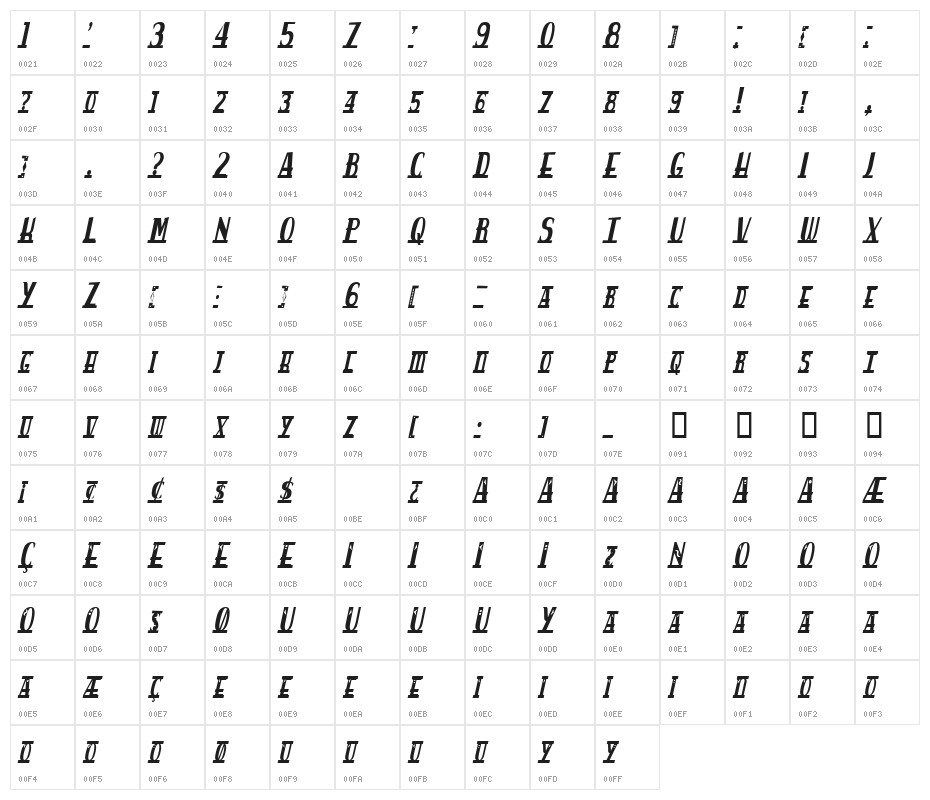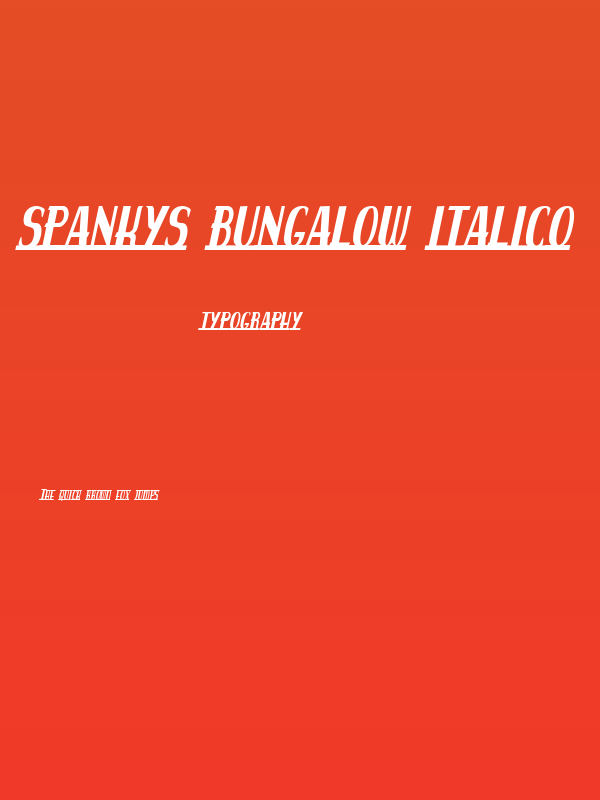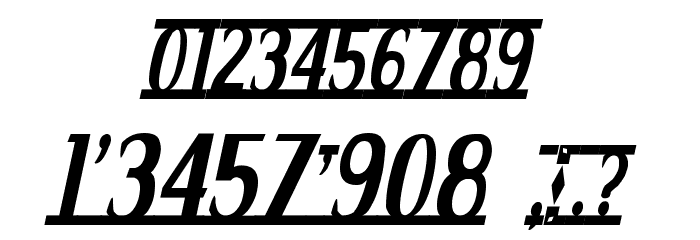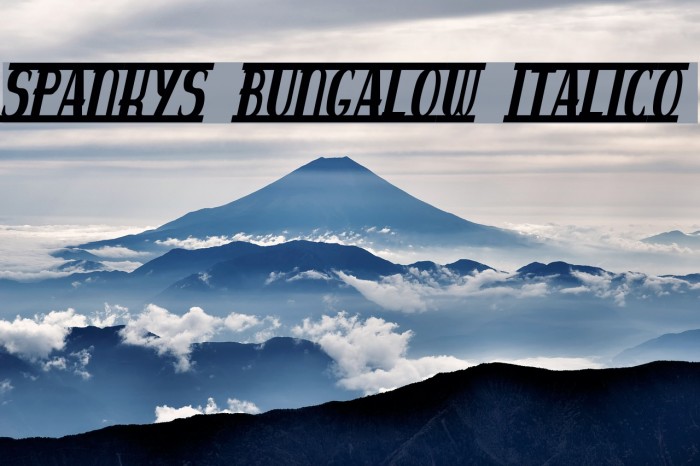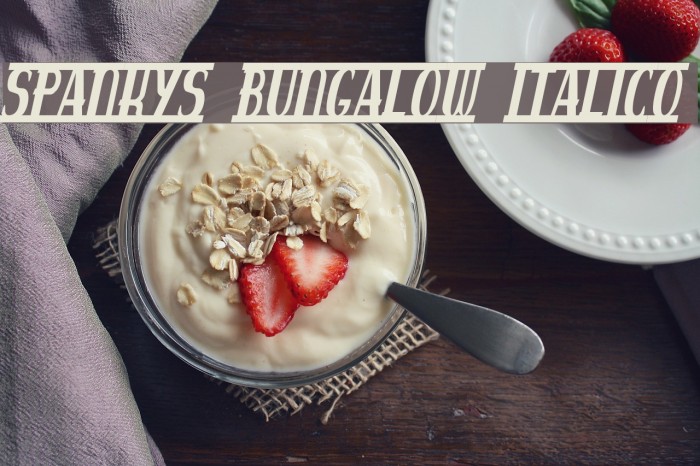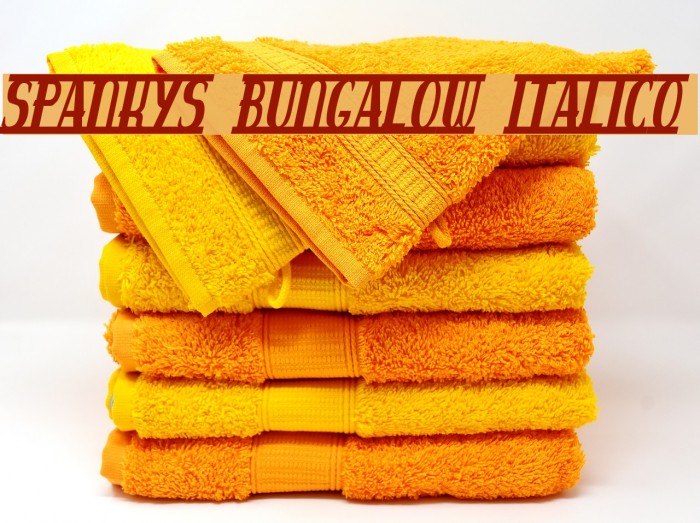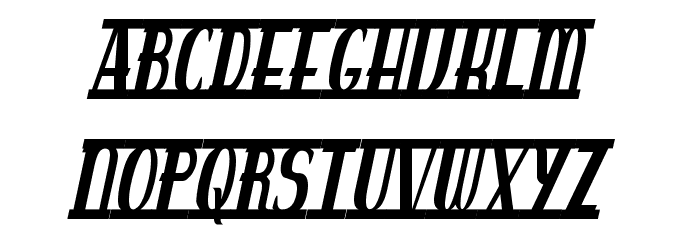
spankys bungalow italico Font
spankys bungalow italico Description
This font features a bold and dynamic style with a strong italic slant, giving it a sense of motion and energy. The characters are thick and robust, with a consistent stroke width that adds to its bold appearance. The uppercase and lowercase letters maintain a uniform height, contributing to a cohesive look. The numbers and special characters are designed to match the overall style, ensuring visual harmony across all elements. The font's design is both modern and slightly retro, making it versatile for various creative applications.
| Proposed Projects | Ideal for branding, poster design, and headlines that require a strong visual impact. |